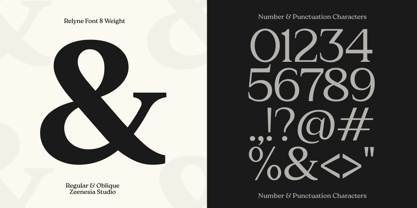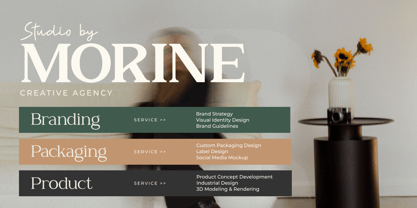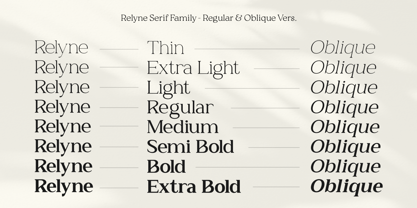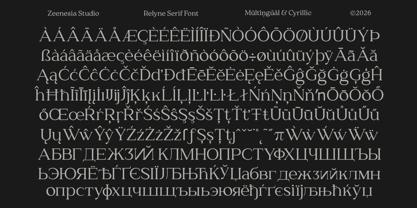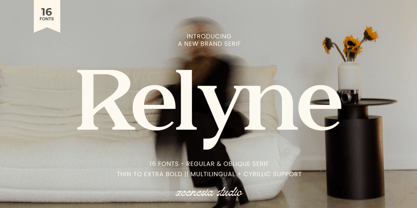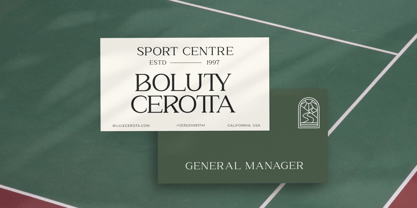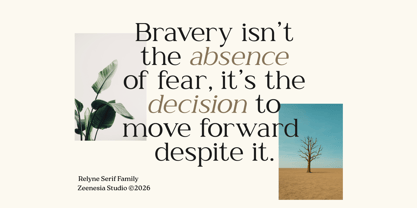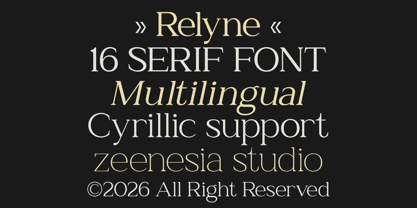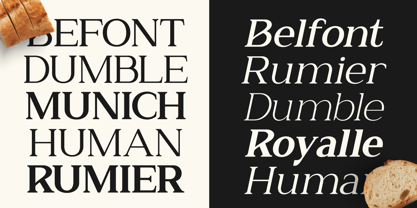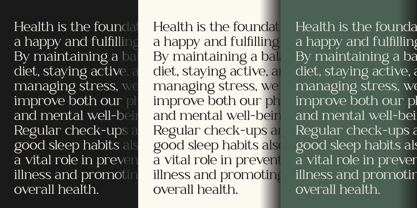
Zn Relyne
by Zeenesia Studio
The Zn Relyne Font Family was designed by Doni Purwoko and published by Zeenesia Studio. Zn Relyne contains 16 styles and family package options. More about this family
Zn Relyne – A Family Serif Font. Zn Relyne is an elegant serif font family designed with a timeless yet modern character. This typeface consists of Regular and Oblique versions, offering flexibility while maintaining a clean and cohesive typographic style. Relyne offers a complete family of 16 fonts, making it suitable for a wide range of design needs from editorial layouts and branding. Zn Relyne also includes Multilingual Support and Cyrillic characters.
Designers: Doni Purwoko
Foundry: Zeenesia Studio